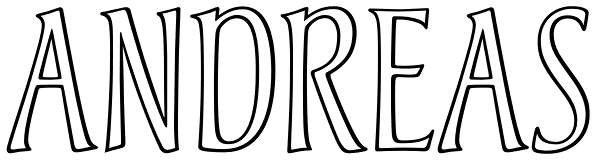
Andreas
Michael Harvey first drew the lettering that became the foundation for Andreas in 1988 as part of the book jacket design for The Studios of Paris, a Yale University Press publication. In keeping with the books subject, Harvey wanted...